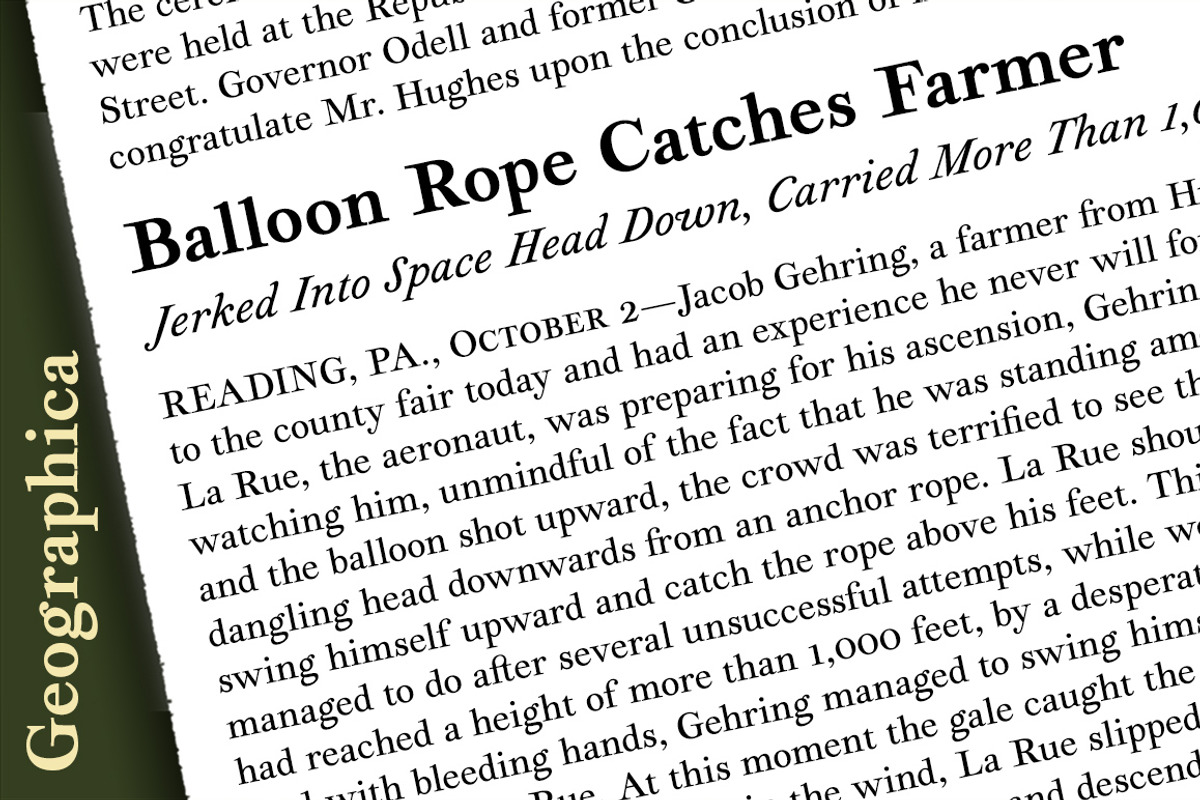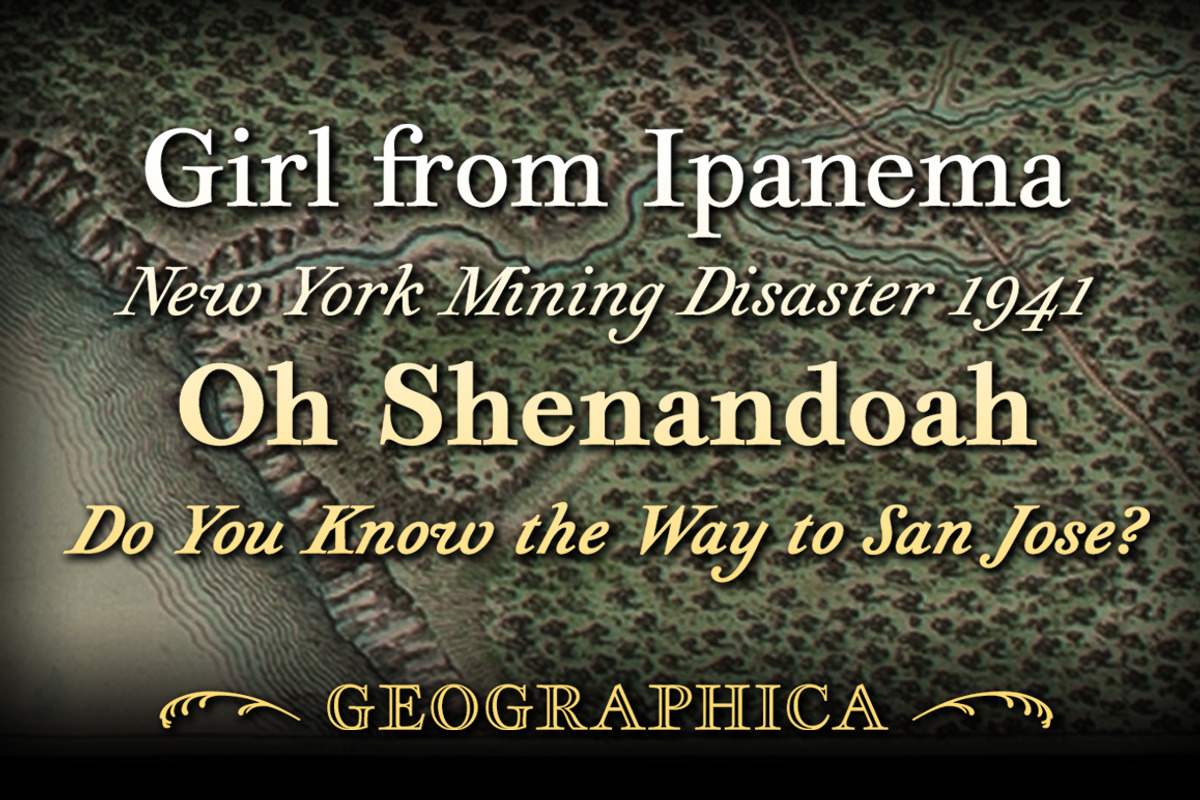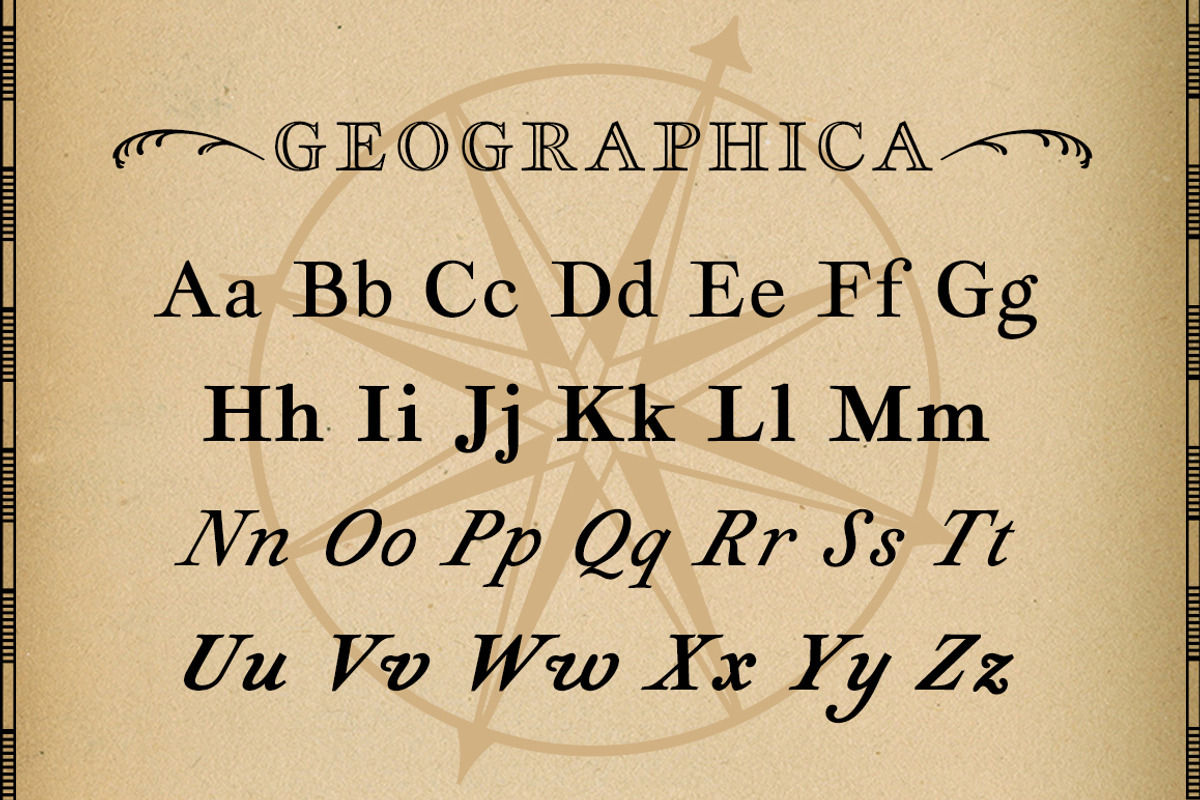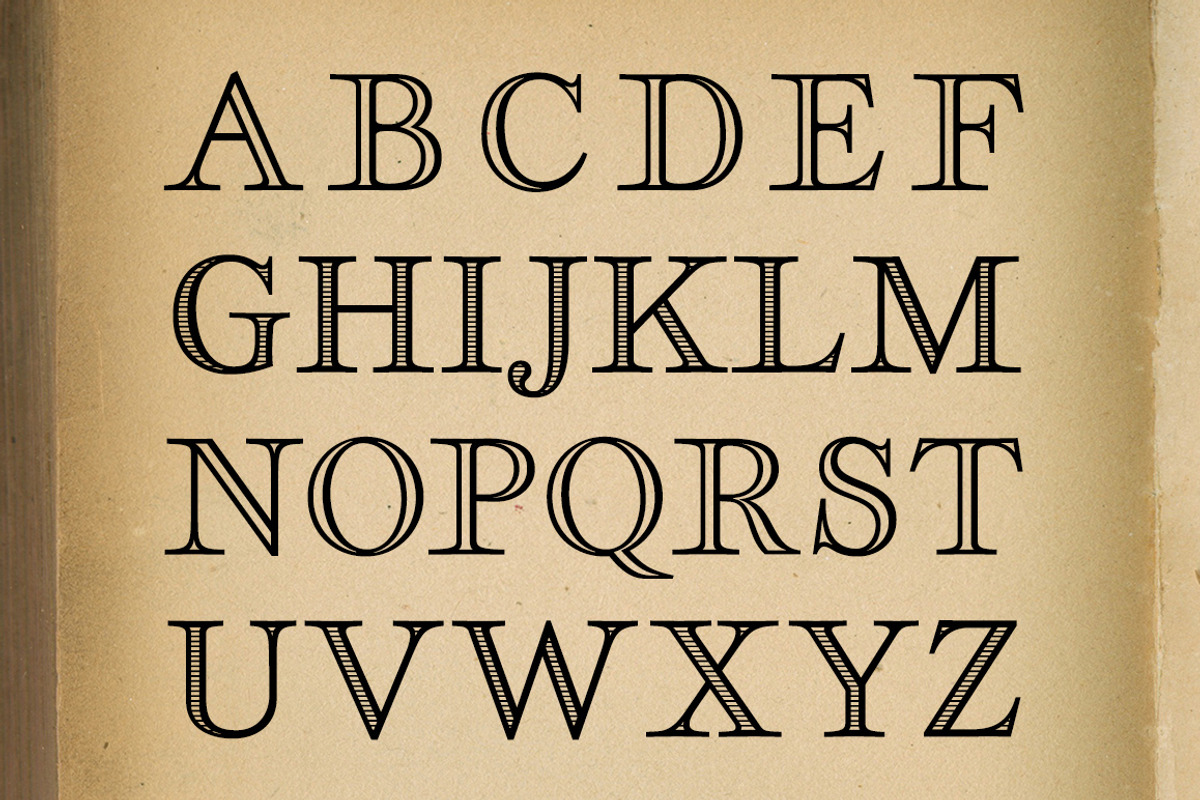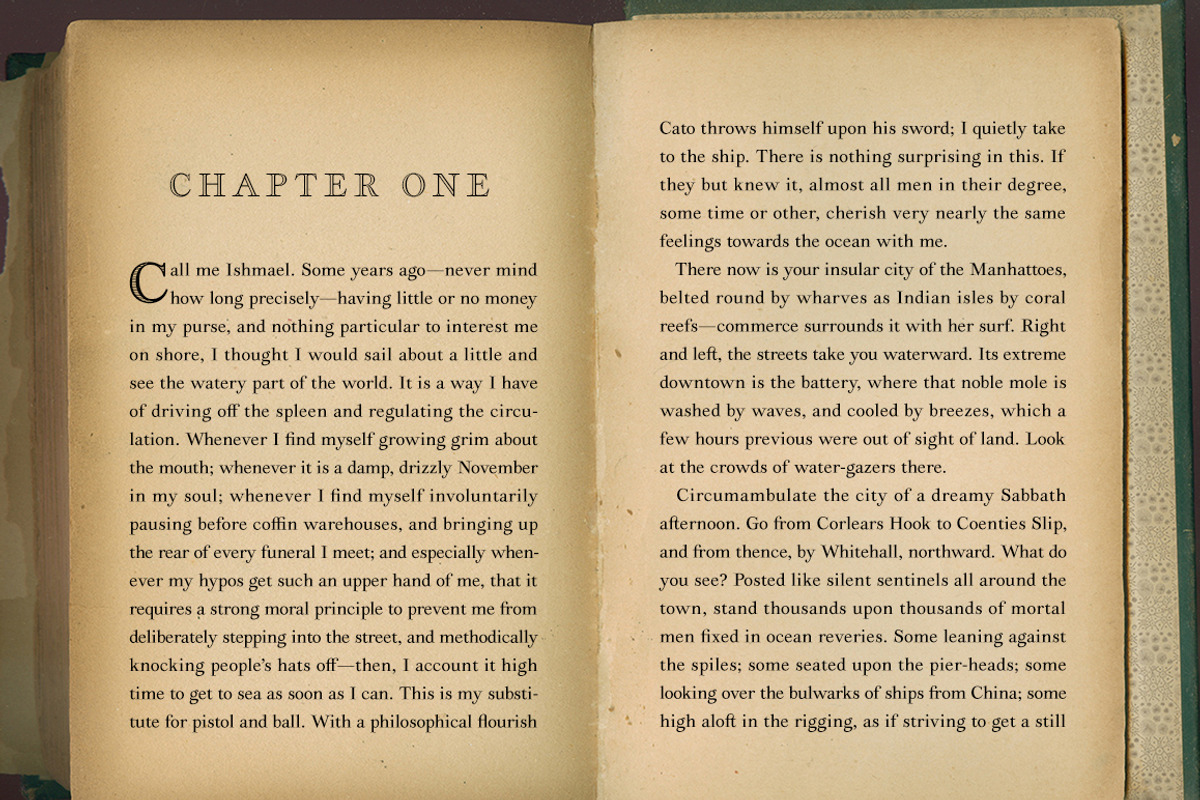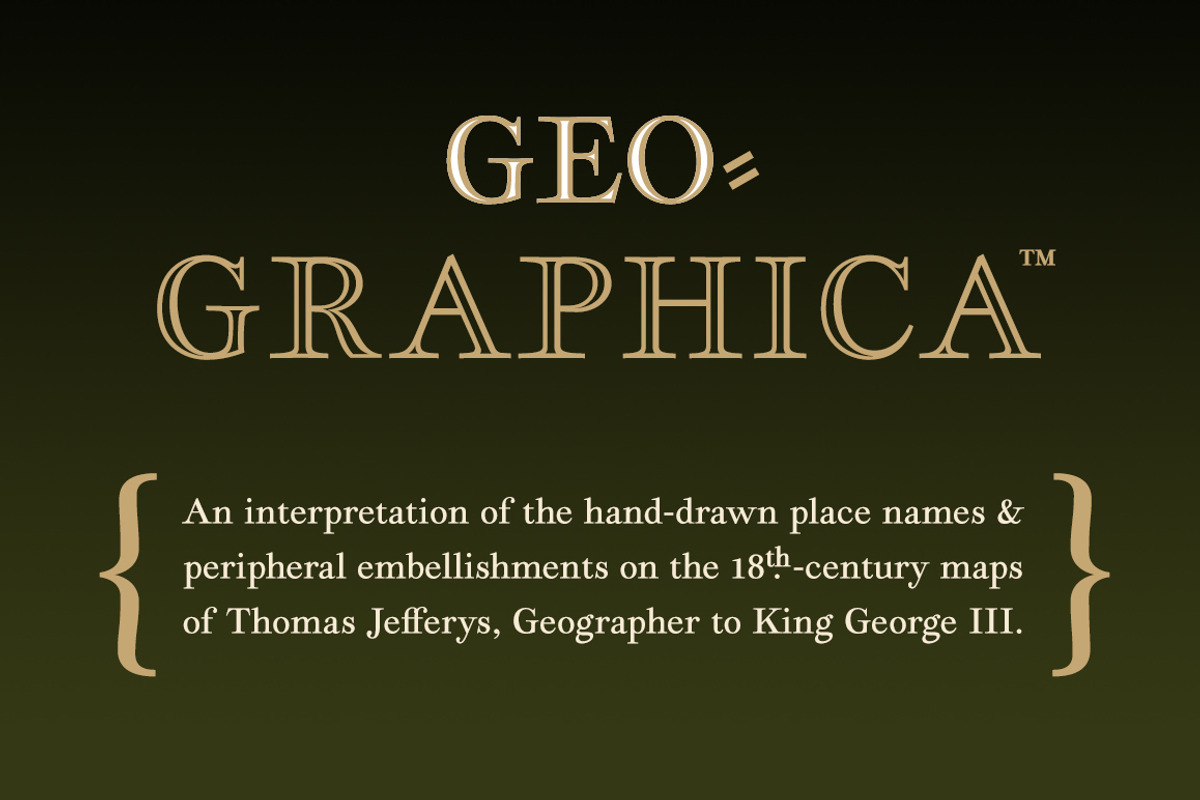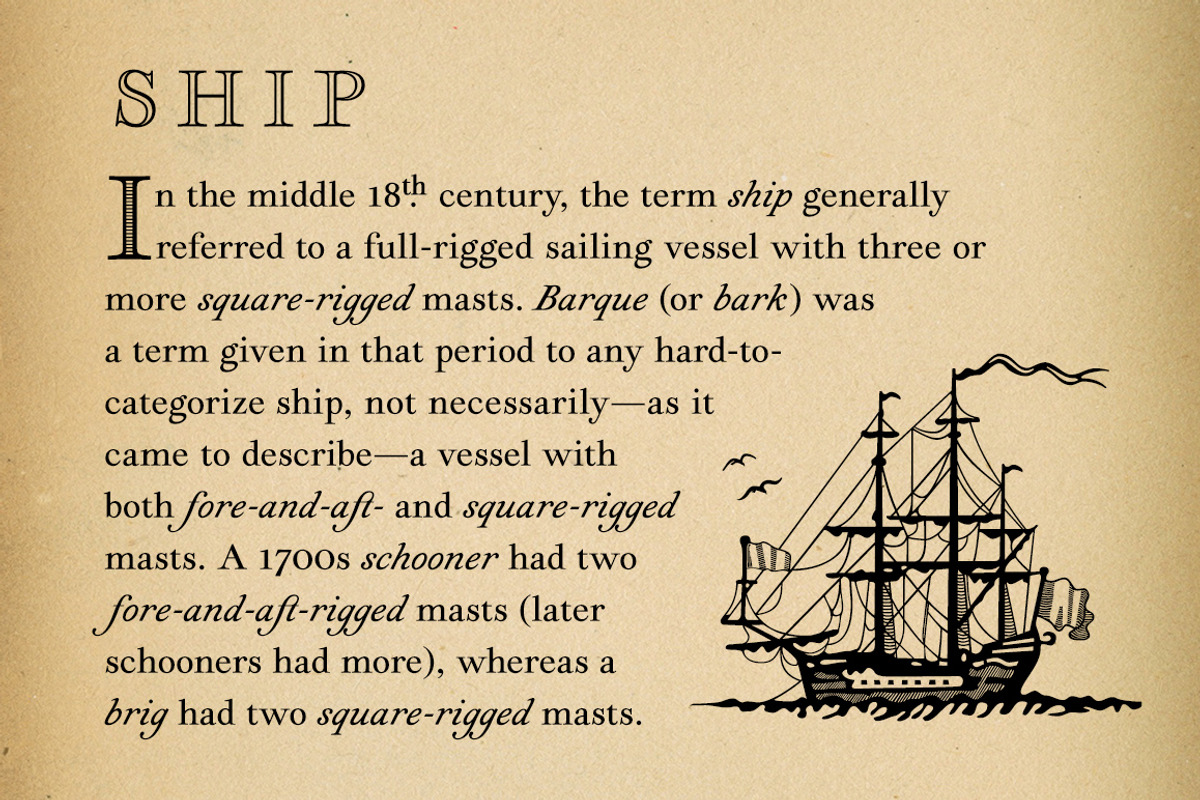
Geographica, an old map serif typeface
Geographica, an old map serif typeface by Three Islands Press is a font selected for branding, posters, packaging, typography.
- Comes with a slew of unique cartographic ornaments, and offers full support for Central and Eastern European languages—more than 1,200 glyph
- Geographica Regular
- Geographica Italic
- Geographica Bold
- Geographica Bold Italic
Why Geographica, an old map serif typeface is worth a look
Geographica, an old map serif typeface by Three Islands Press fits naturally into Branding, posters, packaging, typography.